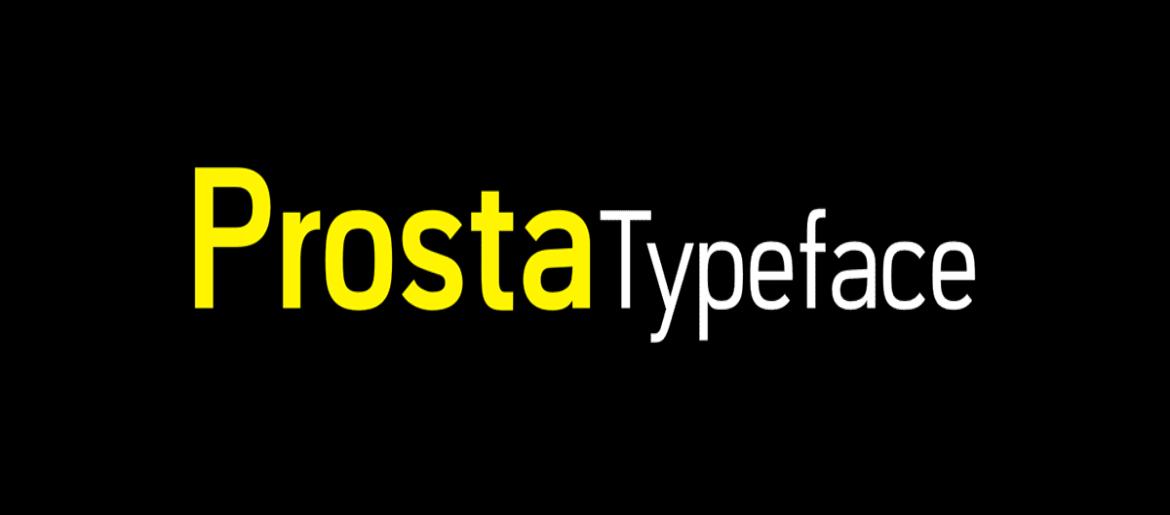
Prosta Font
Prosta by Michał Pieczyński is a clean, no-frills sans-serif typeface with a quiet confidence that comes through in its straightforwardness. Its name means “simple” in Polish — and it delivers exactly that: unhurried proportions, balanced strokes, and the kind of typographic clarity that makes it useful across a wide range of applications without ever drawing undue attention to itself. Available in Regular and Bold weights, it works equally well in editorial settings, digital interfaces, logotypes, and branding contexts where legibility and subtle refinement are the priority. Free for personal use.
Prosta is a clean geometric sans-serif in our free font collection, from Szczecin-based designer Michał Pieczyński — a Polish type designer and creative professional whose work reflects a disciplined, considered approach to type construction. Browse our full library of free fonts and discover more distinctive typefaces crafted by independent designers around the world.